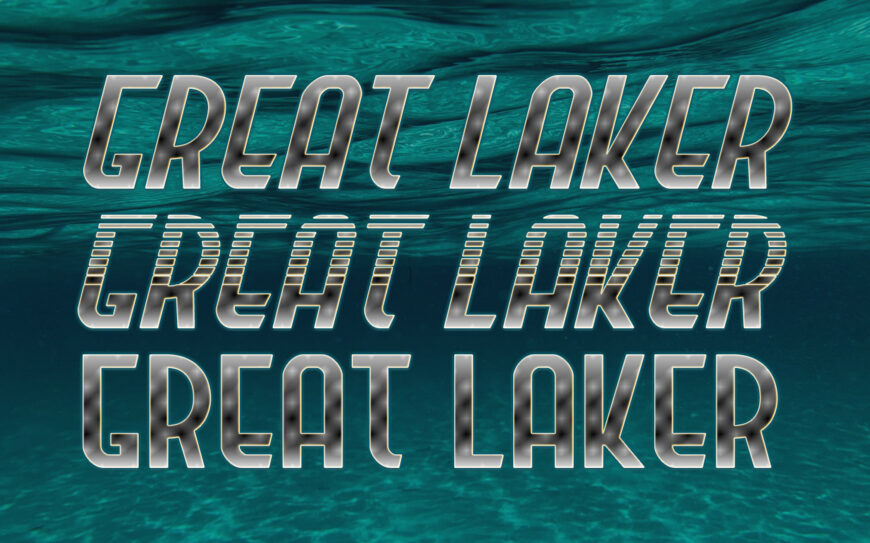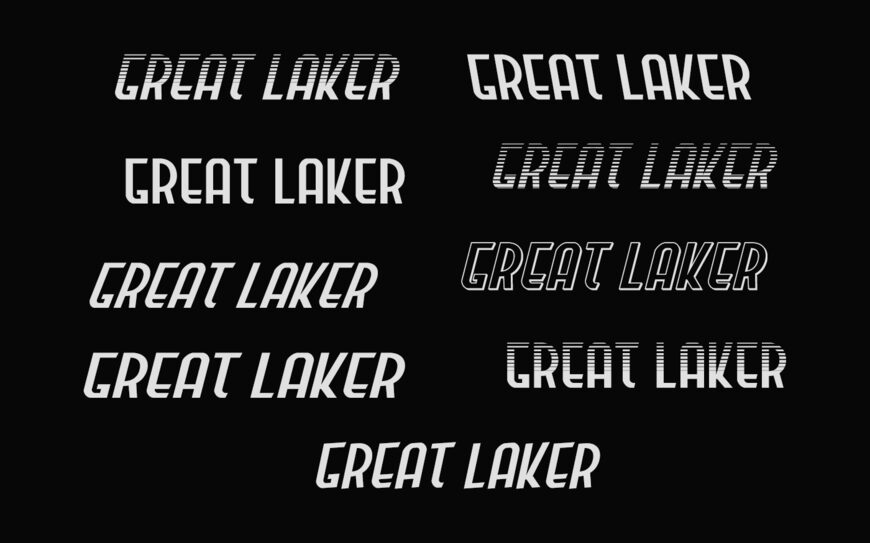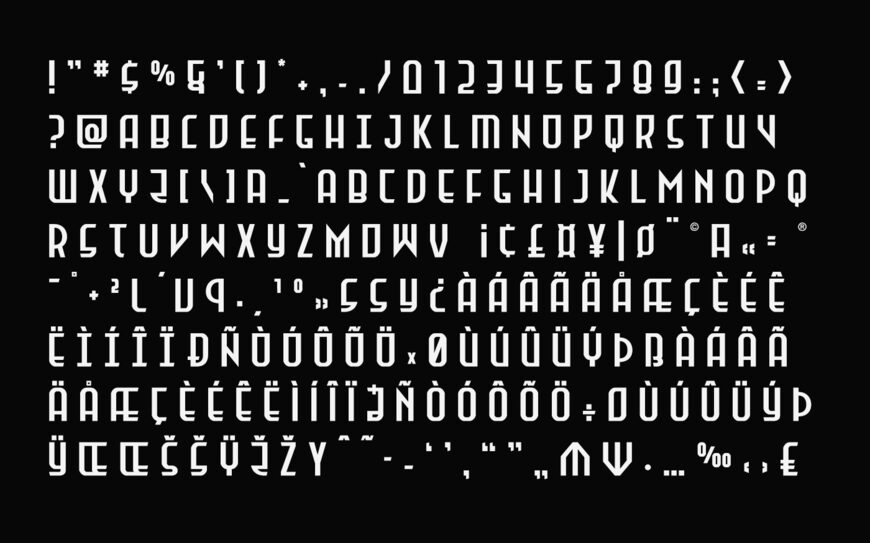
Great Laker Font Family
Designed by Iconian Fonts, Great Laker is a bold retro and techno-inspired font family built for high-impact display design. Featuring 25 versatile styles—including condensed, expanded, 3D, halftone, gradient, and dramatic italic variants—it offers extreme flexibility for creative projects.
Its sleek, geometric letterforms make it ideal for sports branding, comic book titles, superhero graphics, poster headlines, and sci-fi visuals that demand immediate attention and a strong, modern aesthetic.